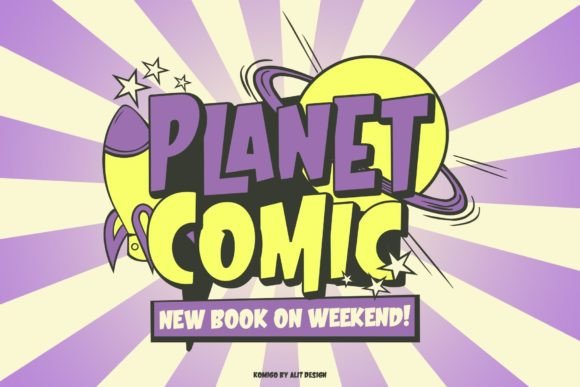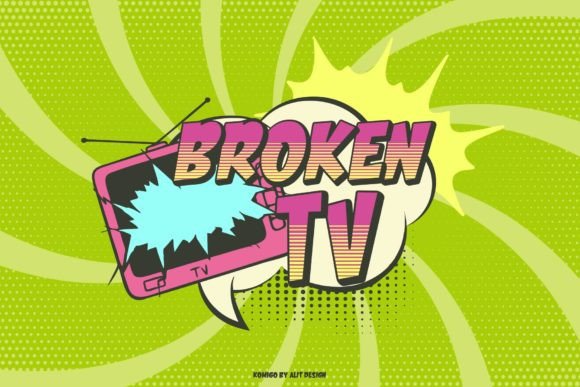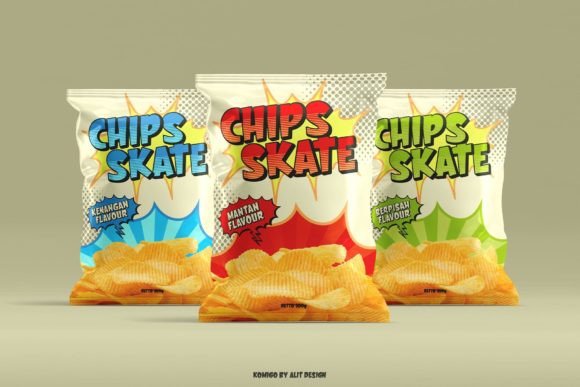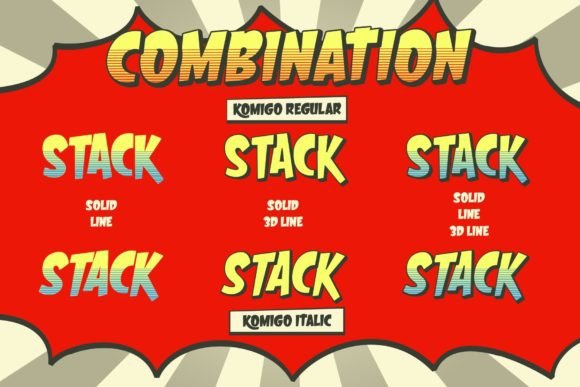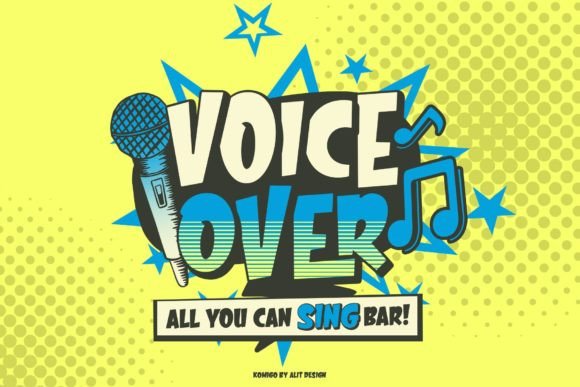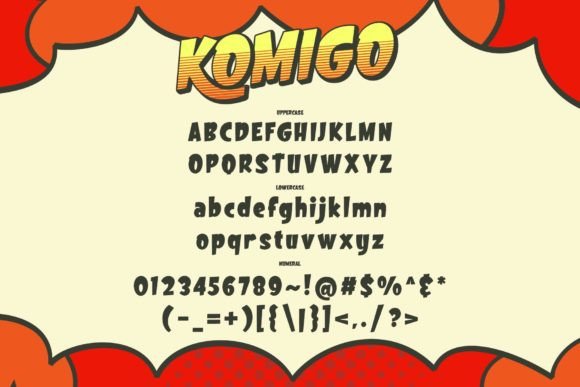
Introduction to Komigo Font Font
Fonts play a crucial role in design, and the Komigo Font font is a typeface that brings both character and versatility to any project. Whether you’re working on a branding project, a website, or a print design, the Komigo Font font offers a unique style that can elevate your work.
Komigo is a fun, cool, and bold layered display font.
Get inspired by its unique comic-style charm, and turn any design project into a true standout This font is PUA encoded which means you can access all the glyphs and swashes with ease.
Key Features of Komigo Font Font
Why Choose Komigo Font Font?
The Komigo Font font is more than just a typeface – it’s a design tool that helps you communicate your message with style and clarity. Its unique character set and versatile design make it suitable for a wide range of applications, from elegant invitations to bold headlines.
With its carefully crafted letterforms and balanced proportions, the Komigo Font font ensures readability and visual appeal across all mediums.
What makes Komigo Font font special?
The Komigo Font font stands out with its unique design, exceptional readability, and versatility across various design applications.